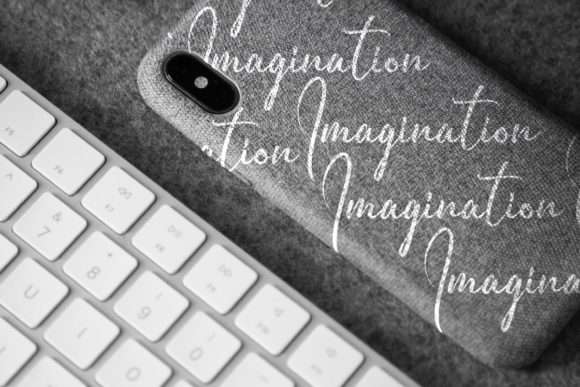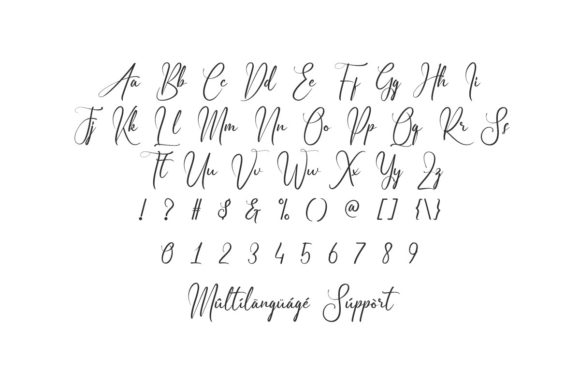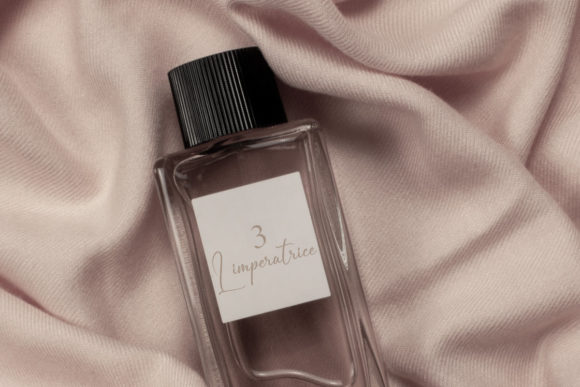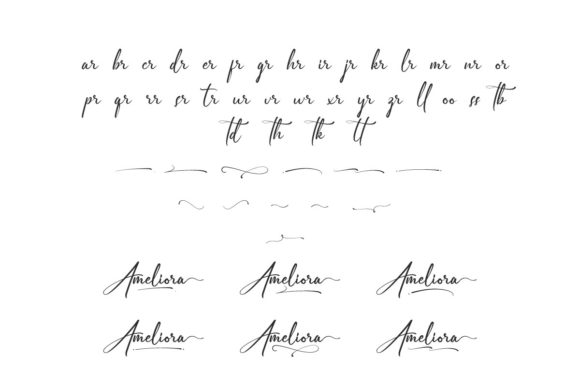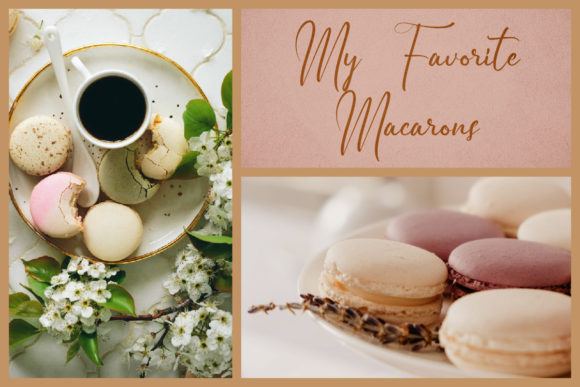
About Ameliora Font
Ameliora is a sweet and subtle handwritten font that is crafted with great care for maximum results. It will add elegance and class to any of your design projects. This font is PUA encoded which means you can access all of the glyphs and swashes with ease.